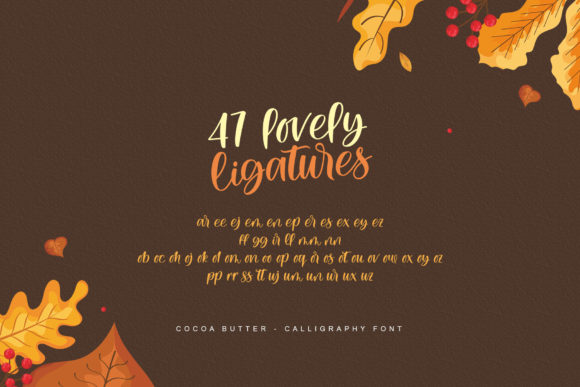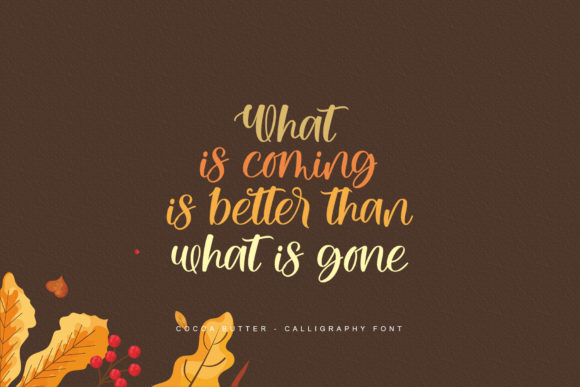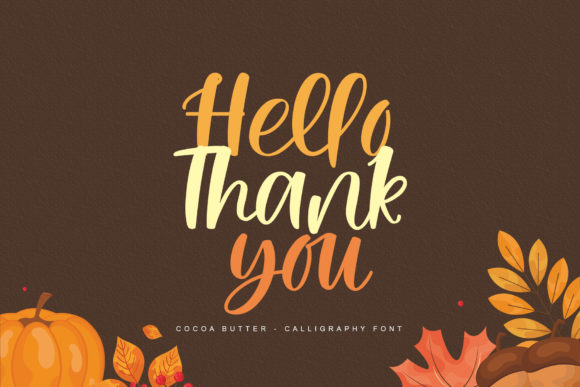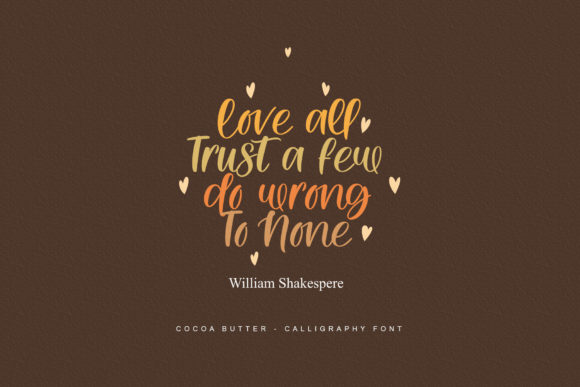
About Cocoa Butter Font
Cocoa butter is a calligraphy font that exudes playful and cheery. This font is specially crafted for those who need a beautiful and refreshing look to their designs. This font comes with stylistic sets, initials, swashes, and ligatures for fully customizable designs.